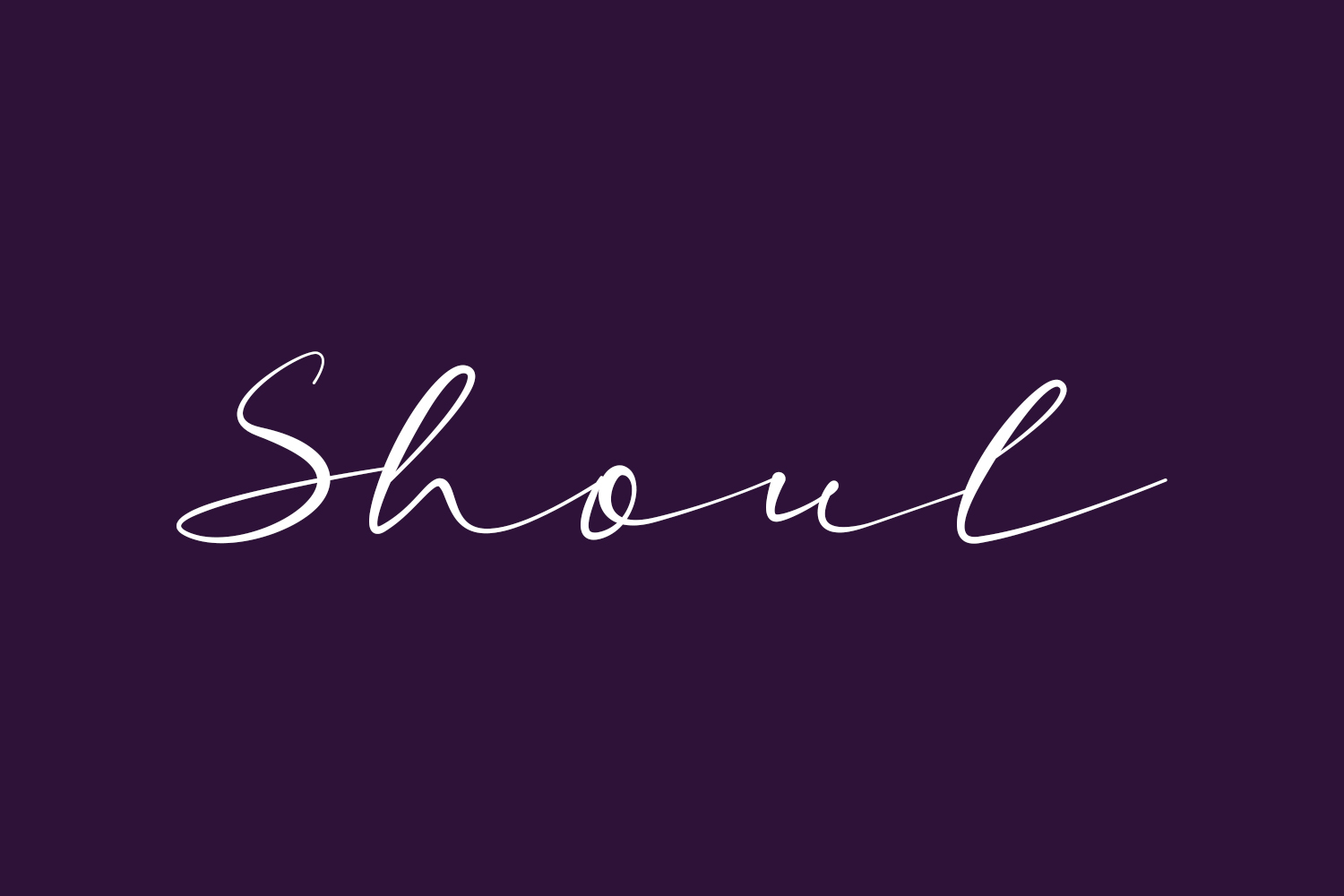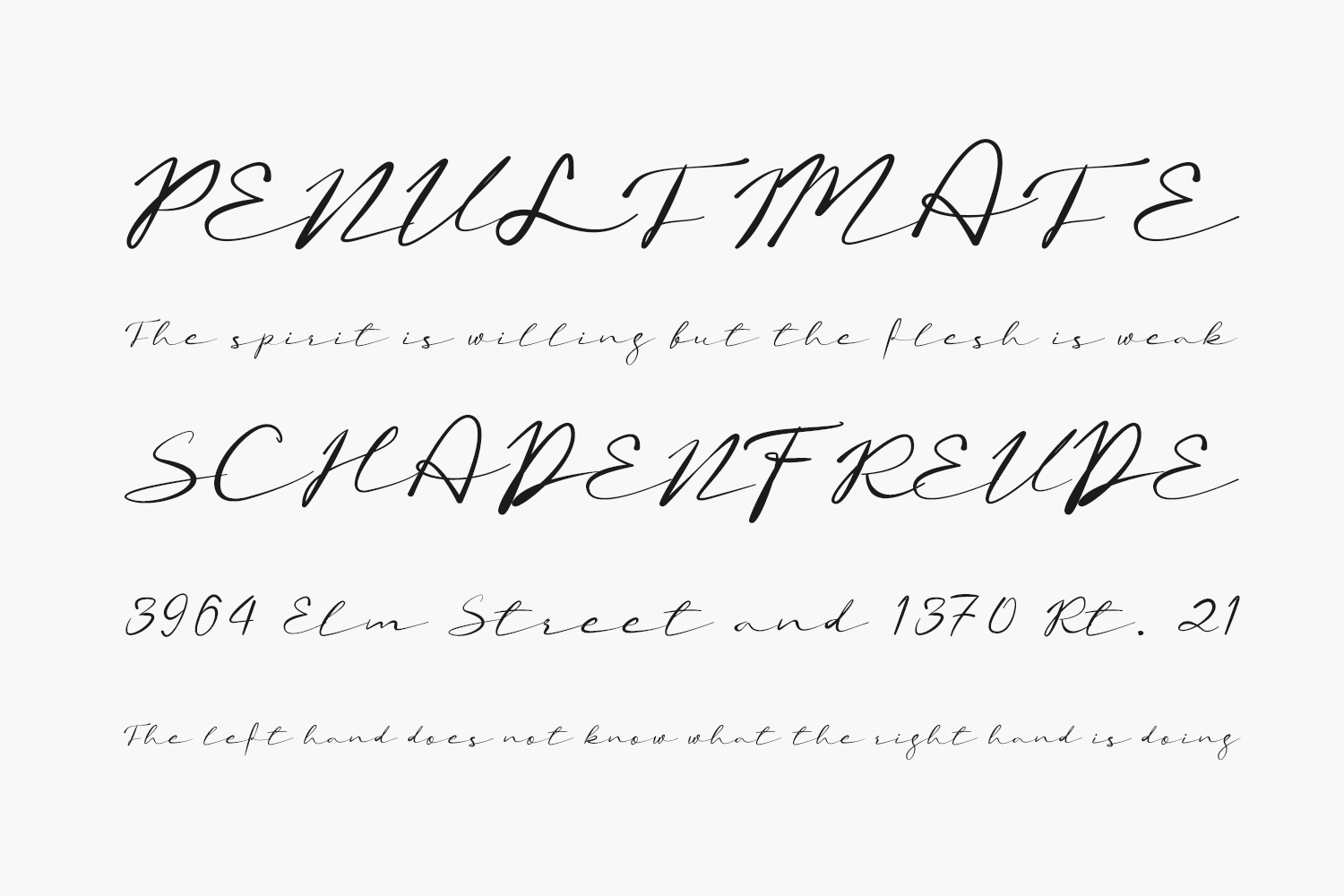
Shoul Free Font embodies a romantic and sweet handwritten typeface featuring an elegant character that adds a touch of sophistication to any design project. Ideal for crafting beautiful wedding invitations, exquisite stationary art, captivating social media posts, and more, this font elevates the aesthetic of your creations. Download the font for free if you need it for personal use or purchase the full version for commercial use.